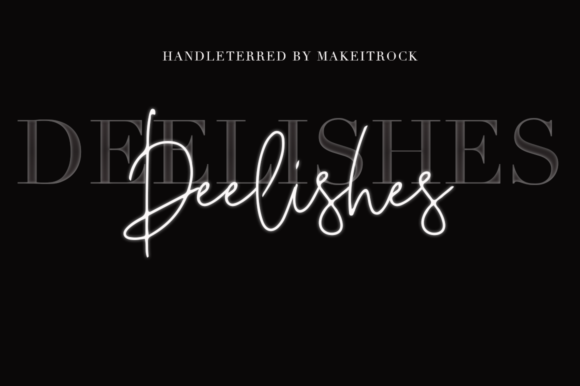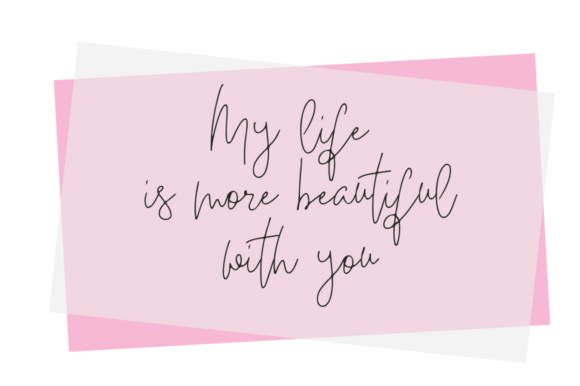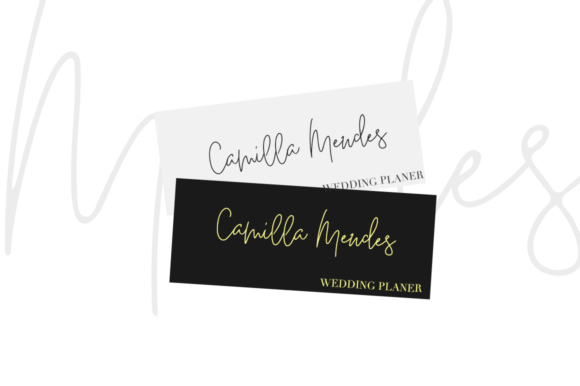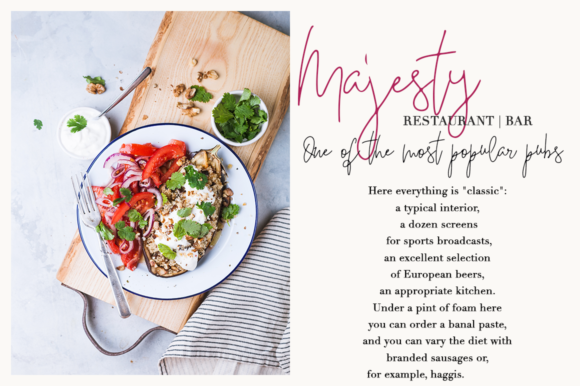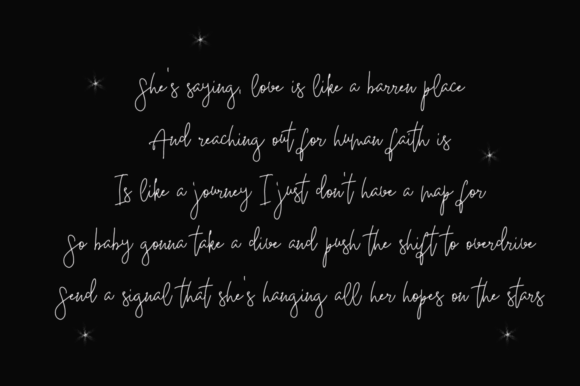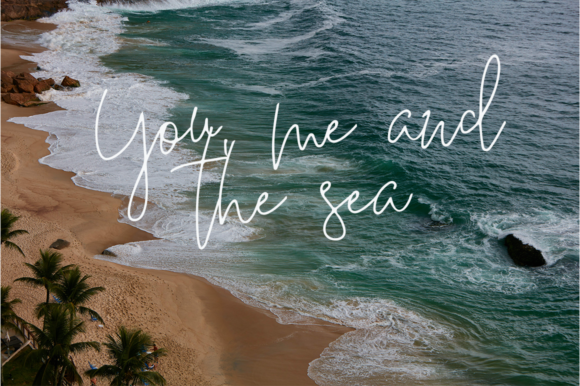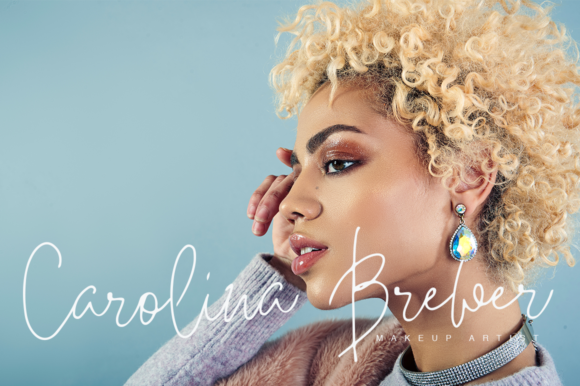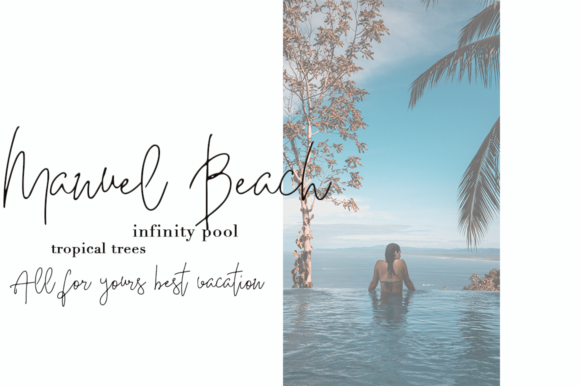
Deelishes Font
About Deelishes Font
Deelishes is a sweet handwritten font. Its suitable for greeting cards, branding materials, business cards, quotes, and for every other design that needs a elegant feel.